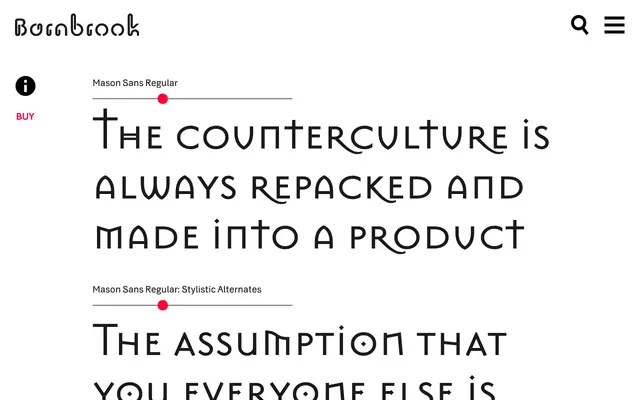
Mason Sans
A humanist sans drawn from the serif Mason, shaped by British typographic tradition and early 20th-century London architecture.
Mason Sans translates the characters of Mason Serif into a humanist sans-serif with an unusual, considered elegance. Barnbrook cites early European modernism and London's early 20th-century buildings as architectural reference points, alongside the typographic legacy of Edward Johnston and Eric Gill. The result is a sans with a distinctly British sensibility and a formality that sets it apart from more neutral humanist models.
Explicitly described as a humanist sans-serif, informed by Edward Johnston and Eric Gill, with architectural and early European modernist reference points.